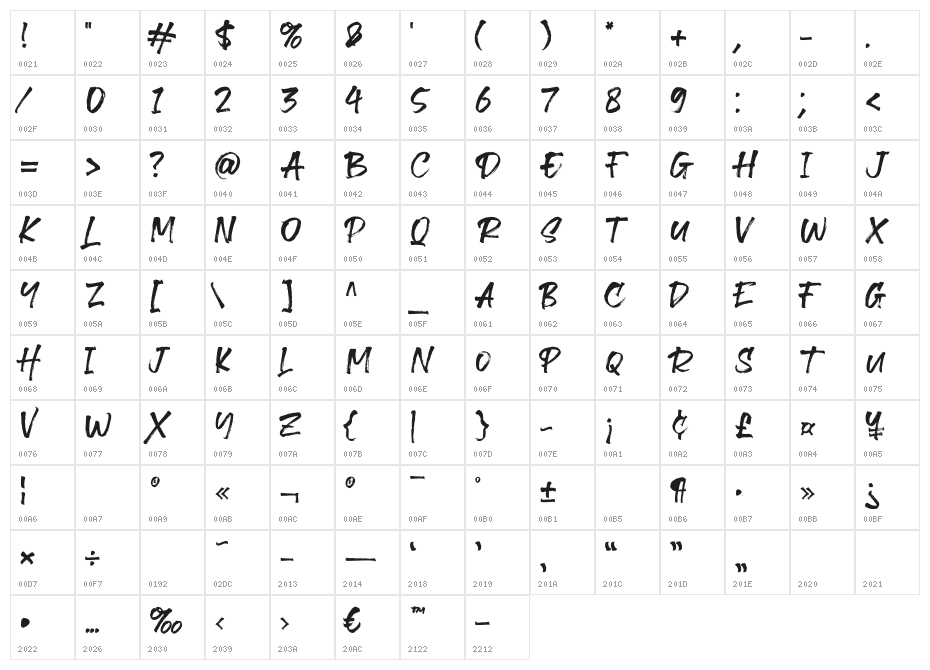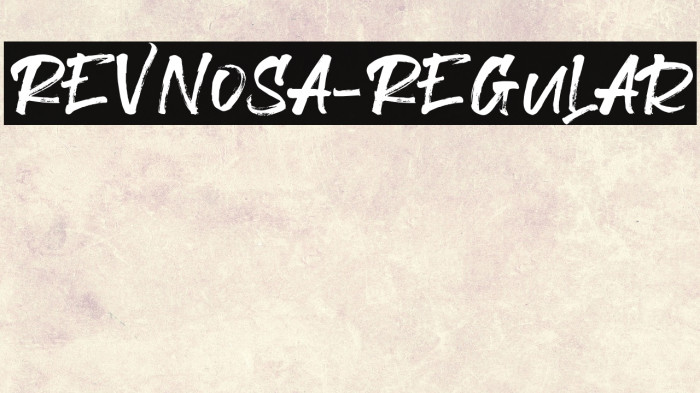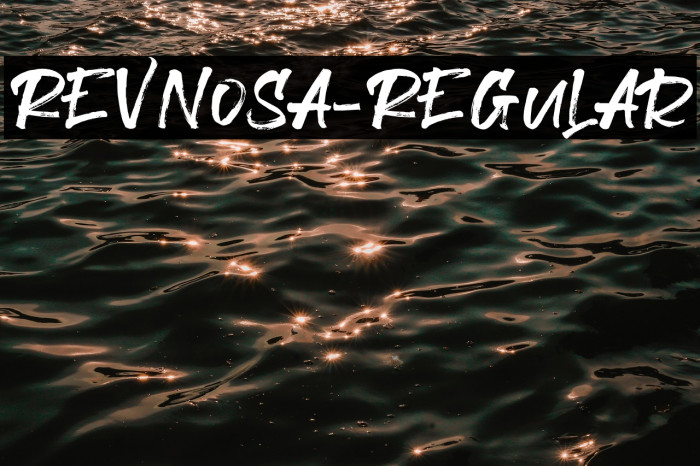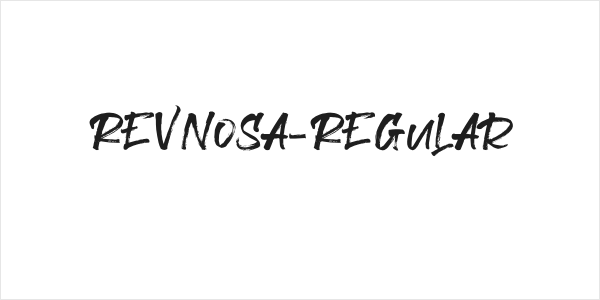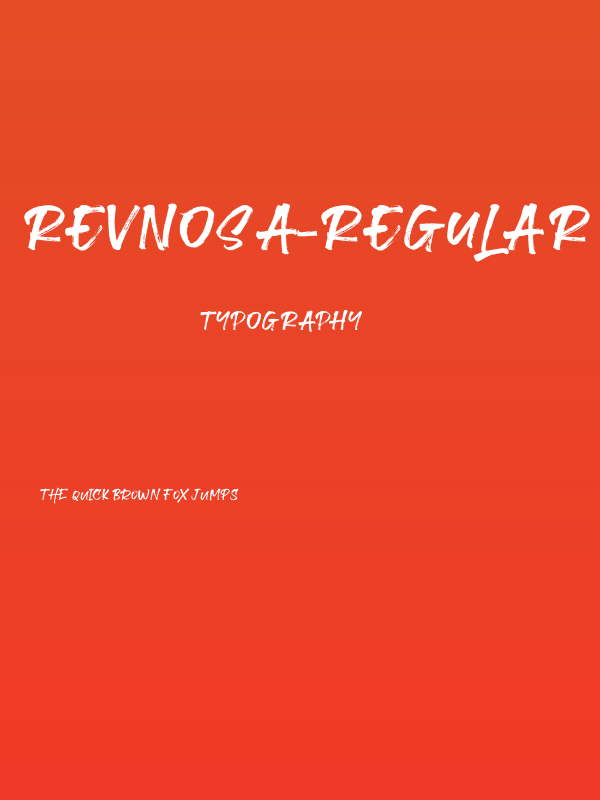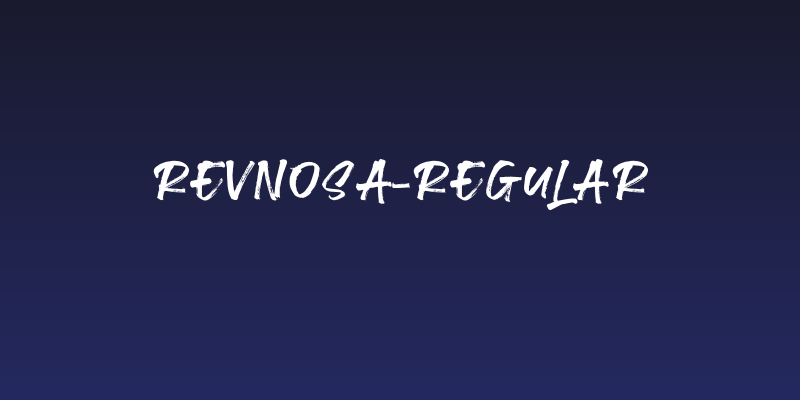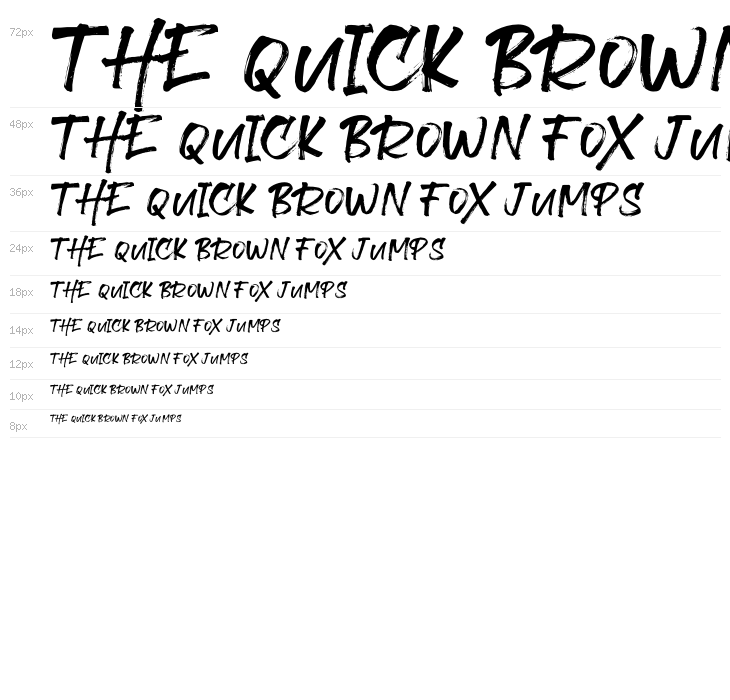
Revnosa-Regular Font
Revnosa-Regular Description
This font features a bold and expressive brush style, characterized by its dynamic strokes and energetic appearance. The letters have a hand-painted quality, with varying thicknesses that create a sense of movement and fluidity. The uppercase and lowercase letters maintain a consistent style, with slightly exaggerated curves and angles that add to its artistic flair. The numerals and special characters follow the same aesthetic, ensuring a cohesive look across all characters. This font is ideal for projects that require a bold, artistic touch.
| Proposed Projects | Ideal for posters, branding, packaging, and artistic projects that require a bold, creative touch. |